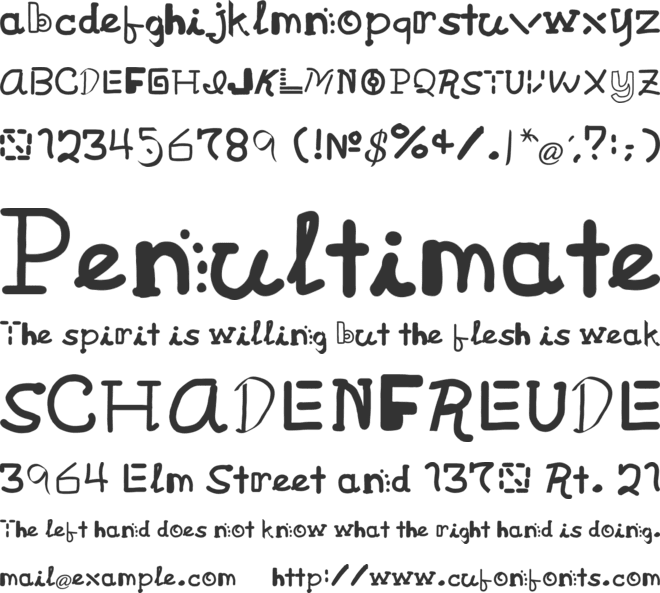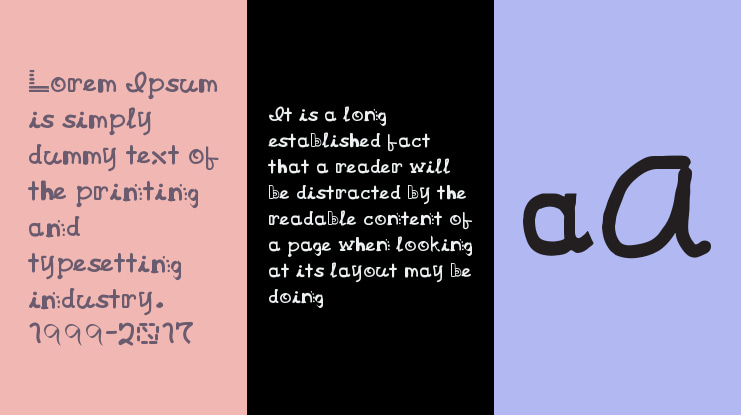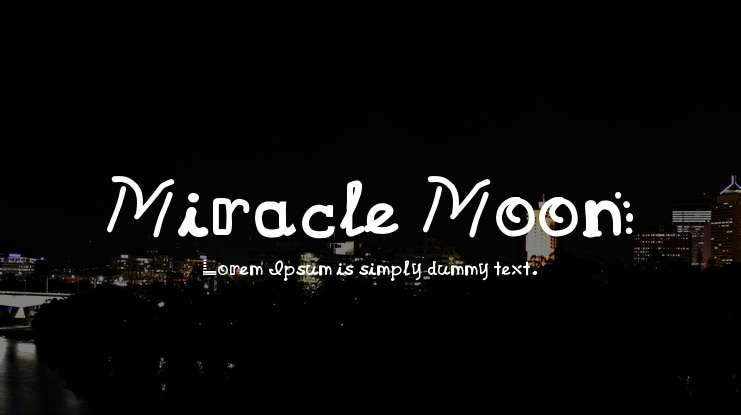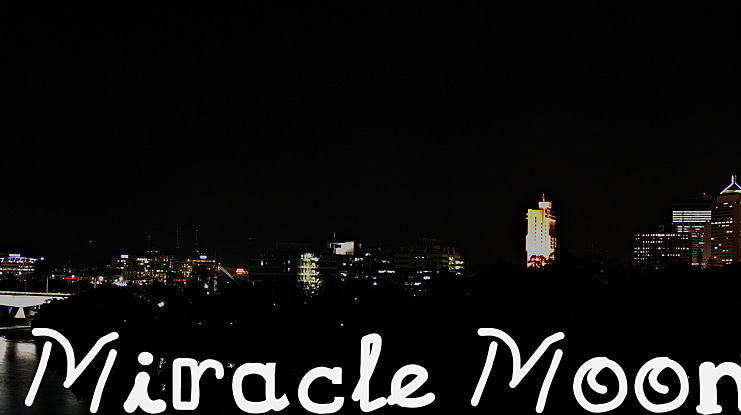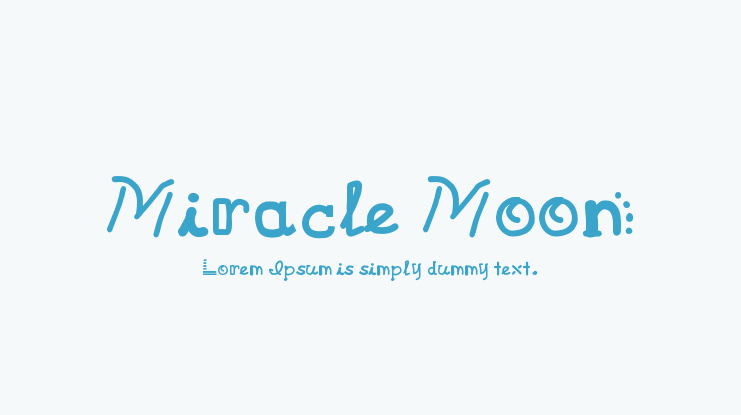
Miracle Moon Font
Miracle Moon is a new children's scrapbook font named after a J-pop song of the same name; it was performed by Hiroyuki Togo and Sanae Shintani.